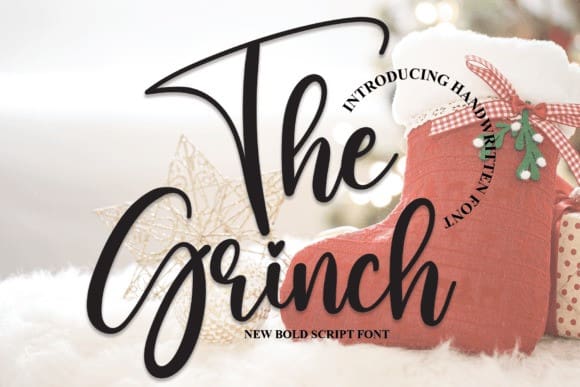
The Grinch Font
The Grinch Font is a gorgeous and bold handwritten font, crafted to give your headlines and logotype projects a stylish touch. This font reads as strong, confident, and dynamic and can add tons of nostalgic character to your designs.